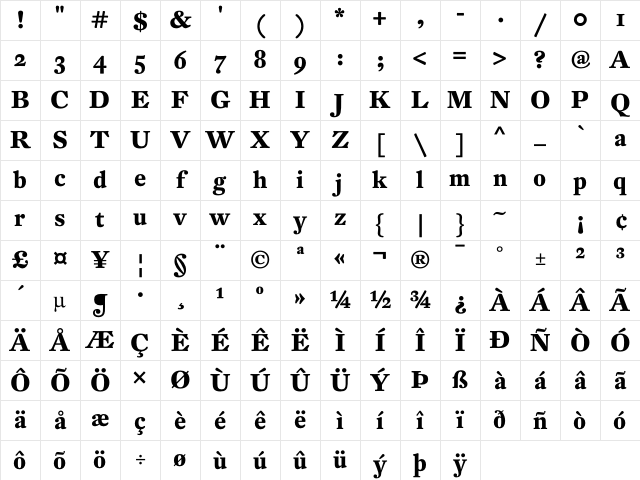
DTL Fleischmann ST Bold Free Font
DTL Fleischmann ST Bold
Style: ST Bold
Design Context for DTL Fleischmann
DTL Fleischmann is a composed and adaptable typeface that performs quietly and consistently across a wide range of design contexts. Its bold stroke weight gives it real presence on the page.